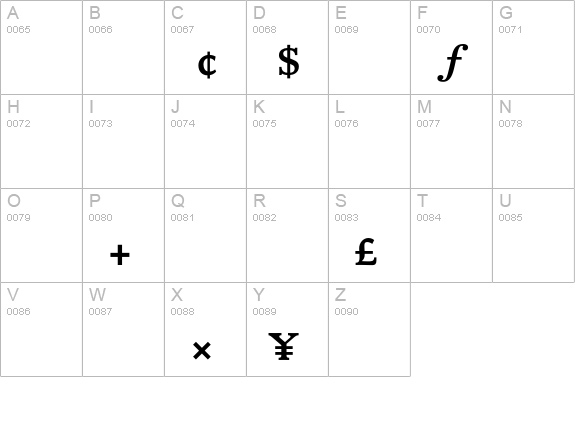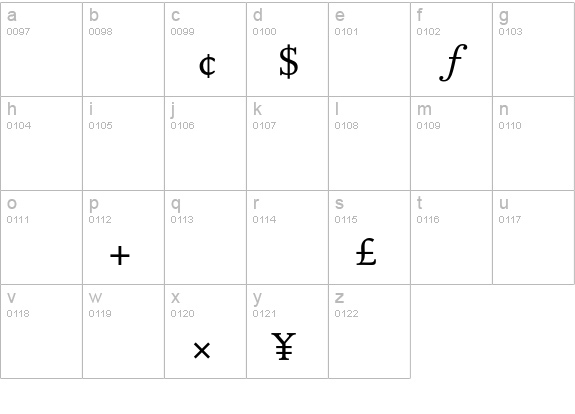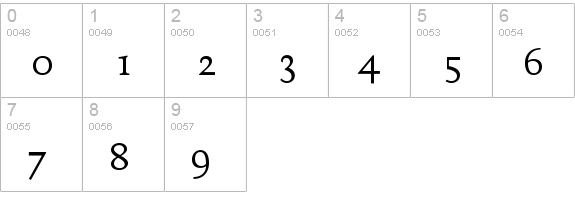
DTLDocumentaT-Tabular Font Details
The DTLDocumentaT-Tabular font is a versatile and modern typeface designed to enhance the readability of tabular data. With its clean lines and balanced proportions, this font is perfect for conveying information in a clear and professional manner. The font's distinct characters provide a sense of sophistication while maintaining a high level of legibility. Best of all, the DTLDocumentaT-Tabular font is available for free download at FontsMarket.com. This means that you can easily access this high-quality font without any cost, making it a valuable resource for designers, writers, and anyone looking to elevate their projects with a sophisticated and functional typeface. Whether you're creating spreadsheets, reports, or any other document that requires a clear and organized presentation of data, the DTLDocumentaT-Tabular font is sure to meet your needs and exceed your expectations.